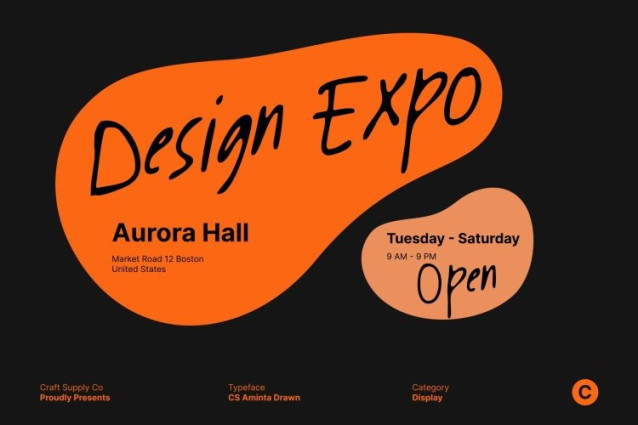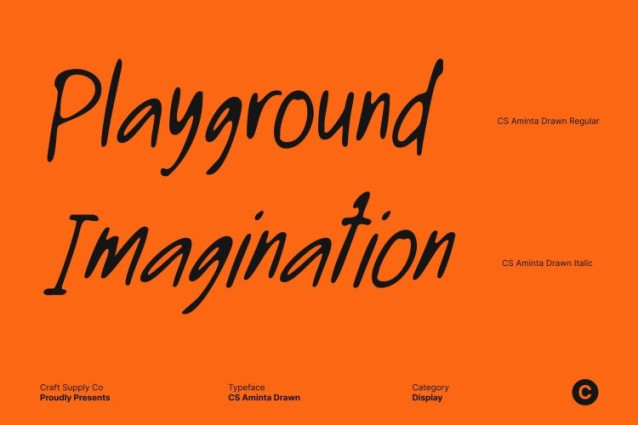
CS Aminta Drawn Font
CS Aminta Drawn Font This is a natural handwriting sans serif font that captures the sincerity and charm of genuine pen strokes. Its relaxed letterforms and subtle variations emulate the organic flow of hand lettering, bringing warmth, approachability, and a personal touch to your designs. Perfect for projects that aim to feel heartfelt and authentic.
Smooth, Casual Strokes for Friendly Expression
Each character flows with gentle, freehand motion, giving the font a relaxed and welcoming aesthetic. Slightly irregular curves and natural imperfections add human character, making it feel relatable and lively. Ideal for short phrases, headings, or accent text, the font conveys sincerity without sacrificing style.
Perfect for Greeting Cards, Invitations, and Personal Projects
This font shines in greeting cards, invitations, and personal stationery, adding warmth and intimacy to messages. Its hand-crafted feel makes every design feel thoughtfully created and emotionally engaging.
Casual Branding and Creative Applications
This font is equally versatile for lifestyle branding, small-business logos, packaging, and social media graphics. Its natural handwriting style delivers a relaxed, easy-going charm, making it ideal for cafes, artisanal products, handmade goods, or personal blogs. Wherever applied, it adds authenticity, friendliness, and playful elegance to your creative projects.